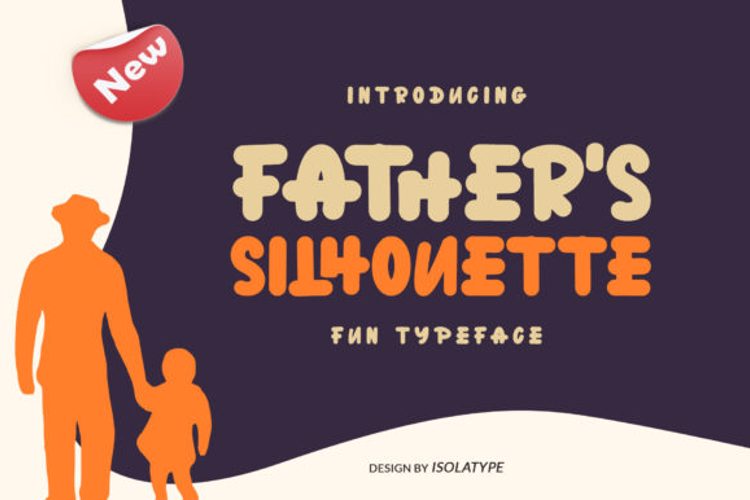
Father 's Silhouette Font
About Father 's Silhouette Font
Father’s Silhouette is a playful display font. Add this font to your creative ideas and notice how it will make them stand out!